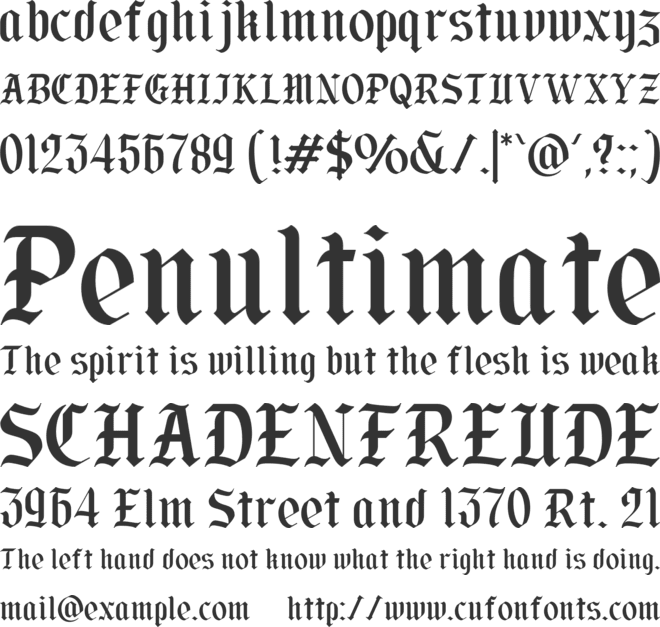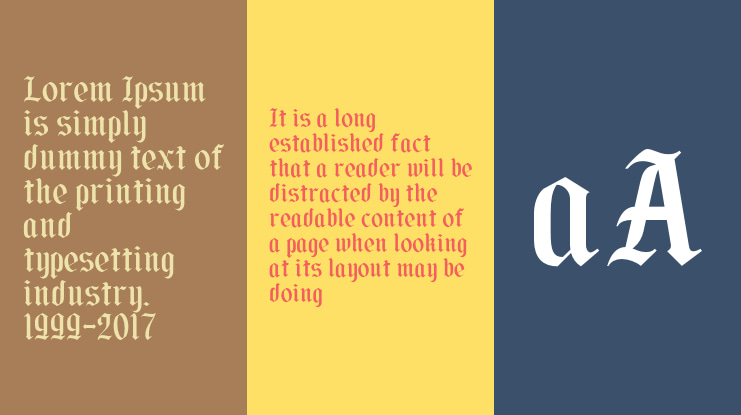
Los Reyes Font
Bakhrudin Ja'far
Los Reyes is a regal, sharp, and modernized blackletter font crafted for bold branding and dramatic storytelling. Inspired by medieval calligraphy and refined through a contemporary editorial lens, Los Reyes brings together historic character and modern precision in one powerful typeface. Its bold gothic structure, sharp serifs, dramatic curves, and rich stroke contrast create a commanding visual presence that instantly captures attention.